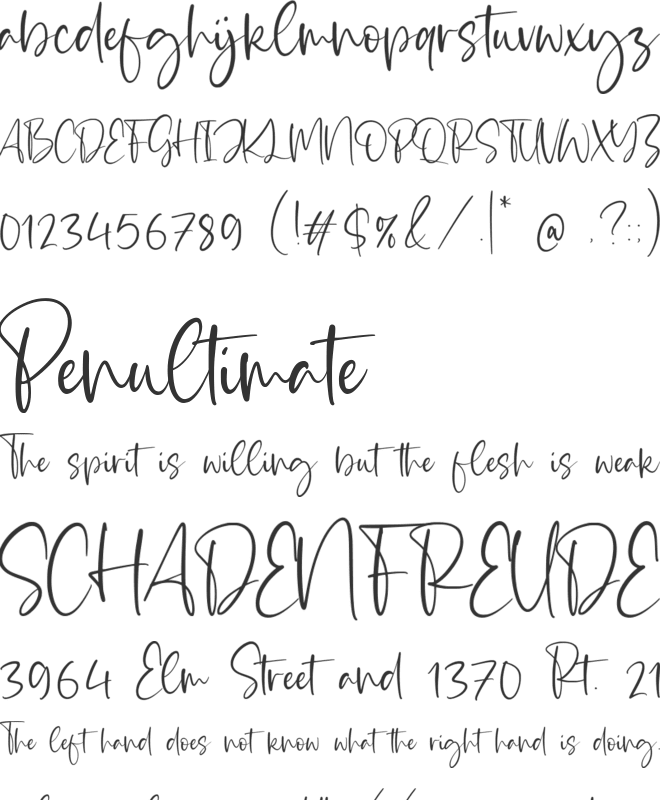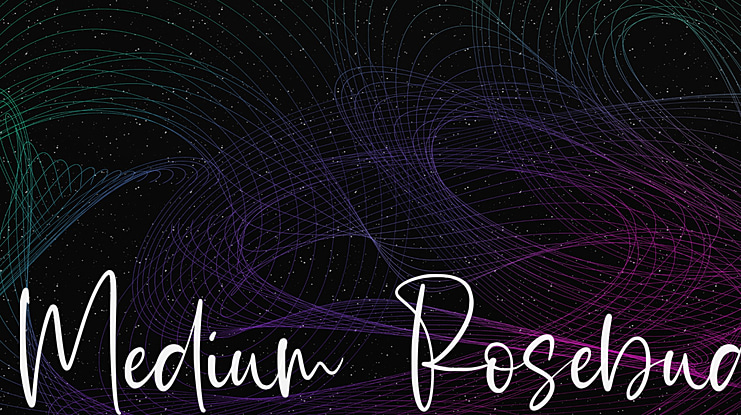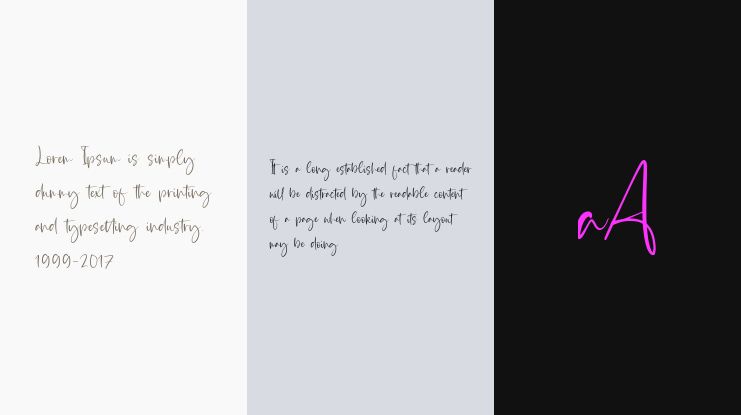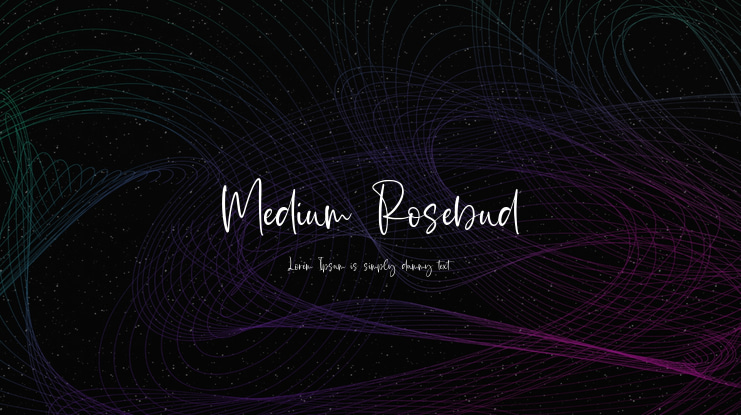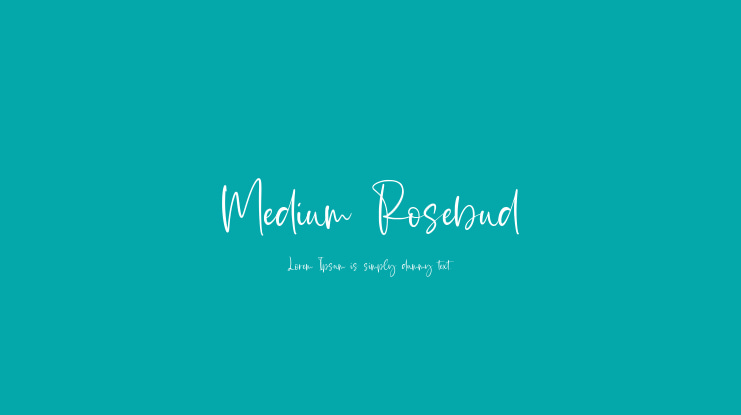
Medium Rosebud Font
Letterative Studio
Introducing by Letterative Studio : Daily Feather Font
Daily Feather is a Modern Calligraphy Font
Daily Feather is perfect for product packaging, branding project, megazine, social media, wedding, or just used to express words above the background.
Daily Feather also multilingual support